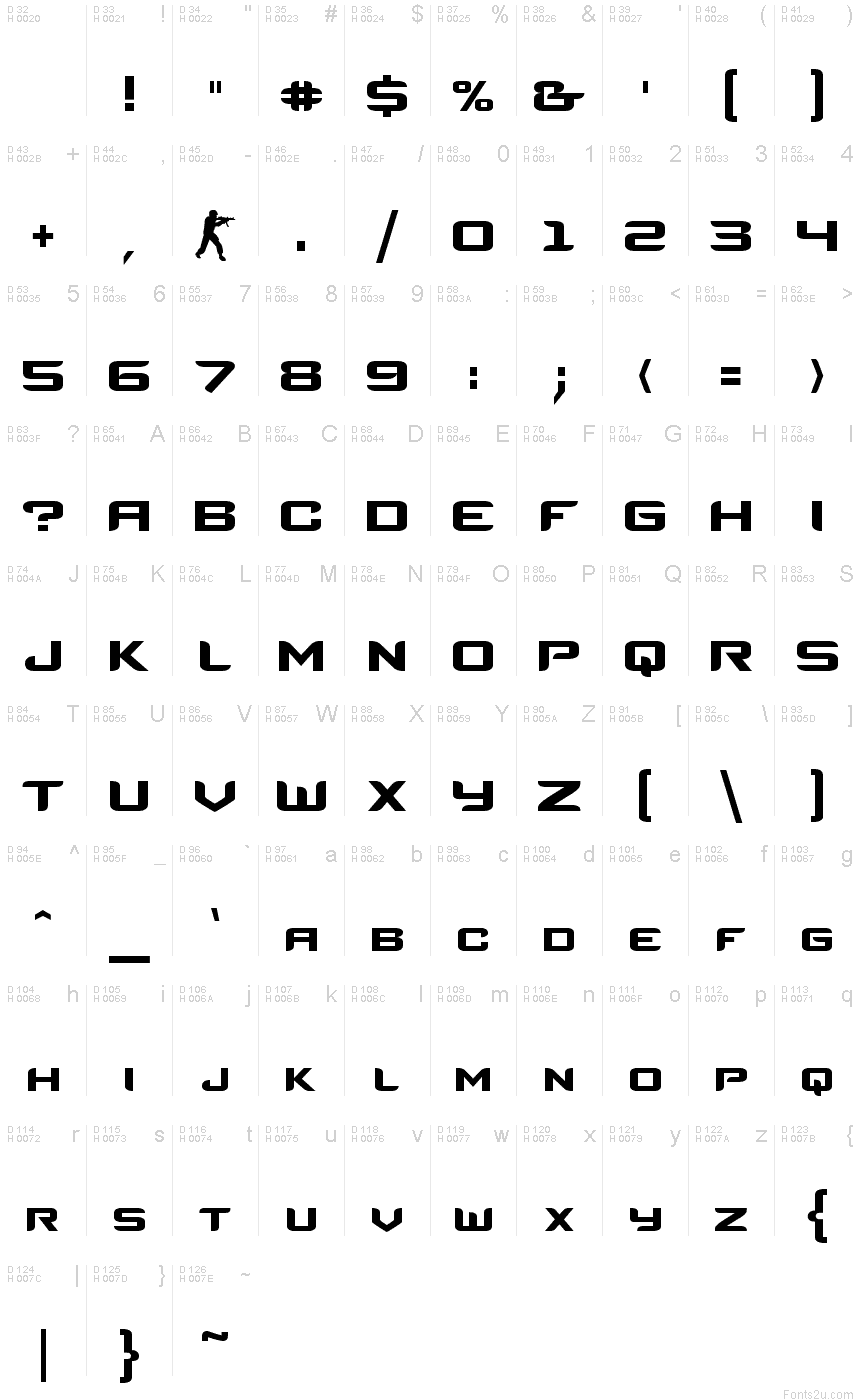
Counter-Strike Regular
Counter-Strile is typeface based on Counter-Strike logo, including latin and cyrillic glyphs.
*Updated with kerning. Also removed useless family fonts (you can do such things like outline-based bolding etc. in any gfx sofrware)